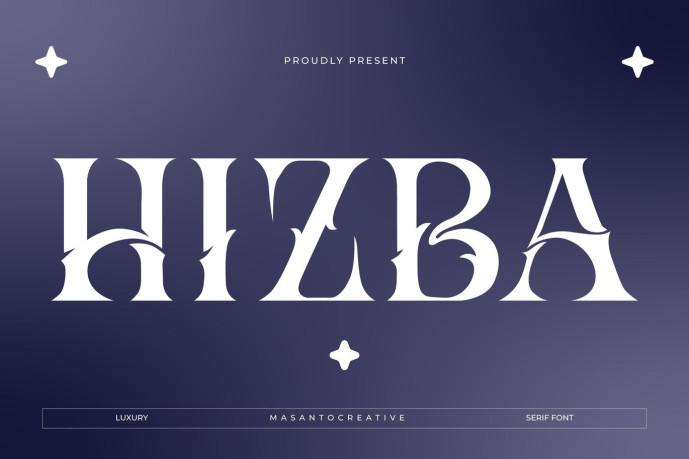
Hizba Font
Hizba Font is an exclusive luxury ornamental serif typeface designed with bold curves, crisp decorative cutouts, and a distinctive high-end aesthetic. Its unique character forms make it an ideal tool for designers seeking a typeface that is artistic, iconic, and high-end. This typeface is ideal for logo design, fashion brands, jewelry packaging, editorial layouts, product labels, posters, invitations, and any project requiring a strong and elegant visual statement.